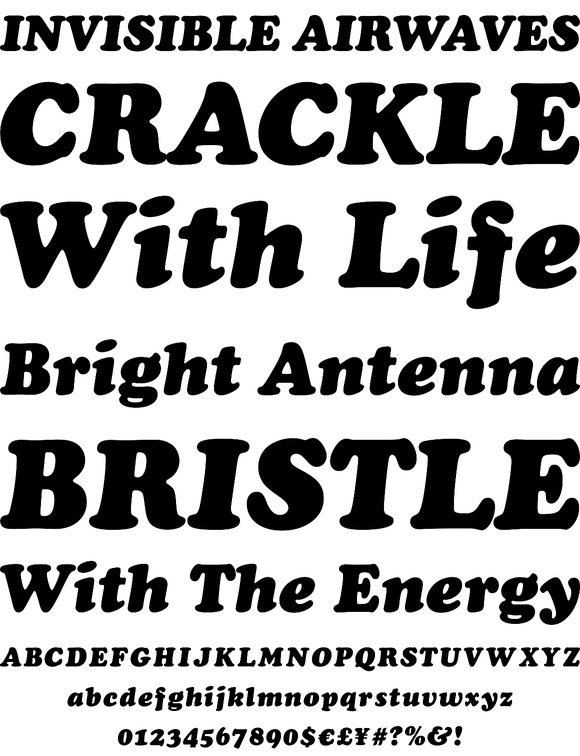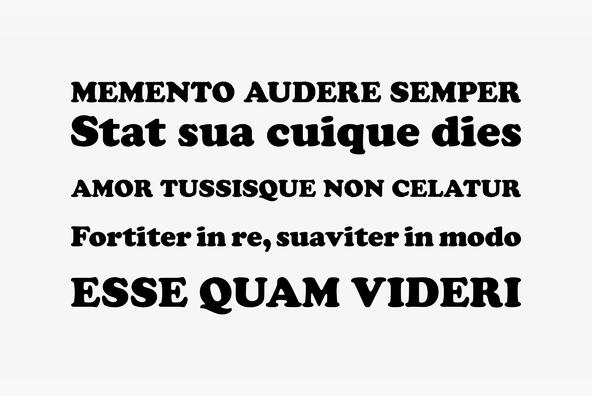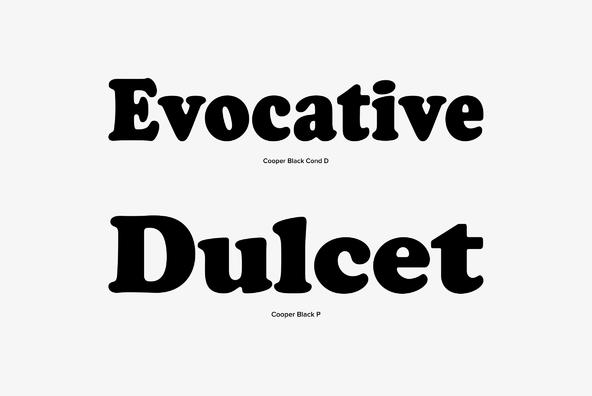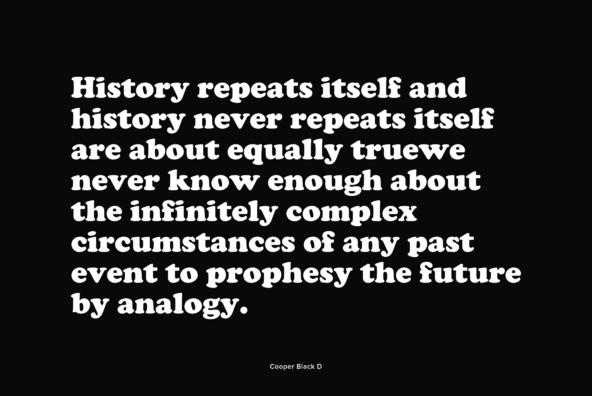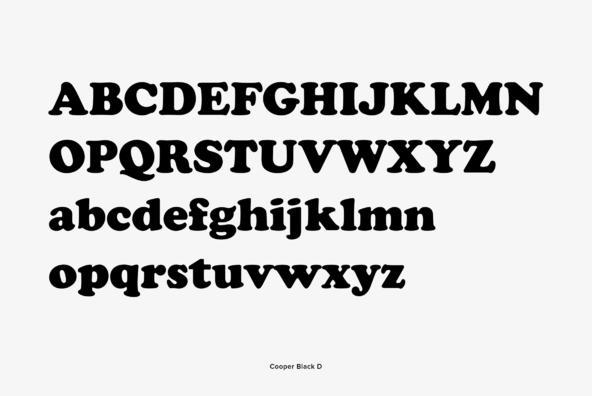
Cooper Black
Cooper Black is a heavily weighted, old style serif typeface designed by Oswald Bruce Cooper in 1921 and released by the Barnhart Brothers & Spindler type foundry in 1922. The typeface is drawn as an extra bold weight of Cooper Old Style. Though not based on a single historic model, Cooper Black exhibits influences of Art Nouveau, Art Deco, and the Machine Age. Cooper Black was a predominant lettering style popularized by Oswald Bruce Cooper in Chicago and the Midwest of America in the 1920s, given typographic form.
Used in: The cover of Pet Sounds, the Beach Boys album. The cover of LA Woman by The Doors. The cover of the David Bowie album The Rise and Fall of Ziggy Stardust and the Spiders from Mars. Herman Miller Picnic Posters, 1970 to 1989, designed by Steve Frykholm. The Garfield comic strip uses this for their books and other branding. Tootsie Roll branding. Top Ramen. The tv show Cheers (first, final scene, and closing credits). M*A*S*H. National Lampoon. Supermarket Chain, Weis Markets. Austin Powers:International Man Of Mystery opening credits. The "Vote For Pedro" shirt from Napoleon Dynamite.